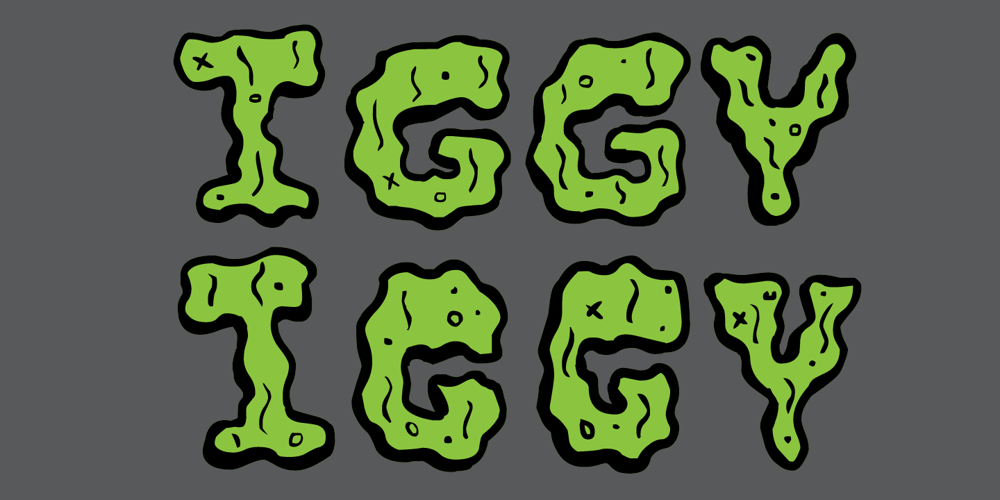
Iggy Font Family was designed by Ian Lynam, Darin Bendall and published by Wordshape. Iggy contains 4 styles and family package options. Iggy is the lettering of Australia-based Oklahoman artist, animator and lifelong skater Darin Bendall set in OpenType and TrueType formats with lots of care and love by lifelong skateboarder and Japan-based New Yorker Ian Lynam. Iggy is a set of two (outline and display) fonts—perfect for that punky, skatery vibe. Both fonts have 4 complete sets of stylistic alternates for letters and numbers, European language support galore, evoke the late 80s heyday of skateboarding and hardcore punk rock and thrash. Perfect for animation, retro design work and anything needing a bit of nasty attitude!